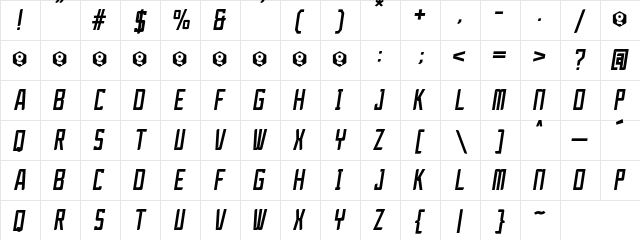
JerrySport Italic Med Italic
Design Context for JerrySport Italic Med Typeface
JerrySport Italic Med brings high-energy athletic personality to the page — its confident, muscular forms are built for impact. Its italic angle brings a sense of urgency and motion to the letterforms.
Built for sports team identities, athletic apparel, event posters, and high-energy promotional material.
Pro Tip: JerrySport Italic Med thrives on contrast — try it large, bold, and tight against a clean background for maximum visual impact.